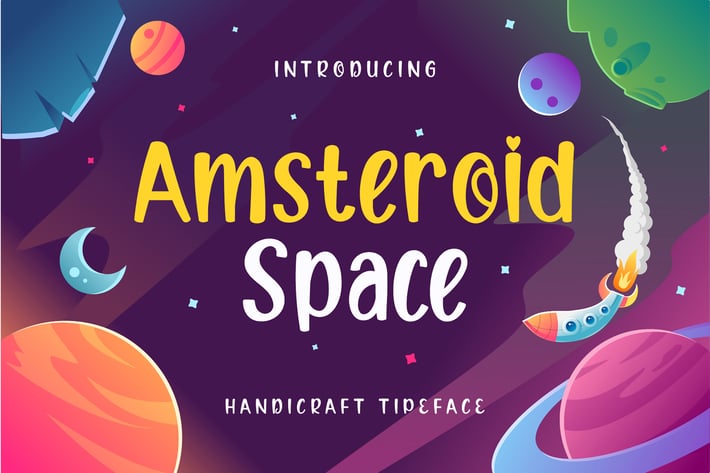
Amsteroid Space - Handcraft Display Font
Introducing Amsteroid Space, a playful and charming handcrafted display font that brings a warm, natural vibe to your creative projects. Its irregular yet tidy shapes give it a unique personality that feels both fun and approachable. This font is perfect for adding a handcrafted touch to your designs without sacrificing clarity.
Designed with care, Amsteroid Space works beautifully across a wide range of uses. Whether you are creating branding for children’s products, menus for food businesses, or eye-catching labels, this font fits seamlessly. Furthermore, it’s an excellent choice for holiday themes, school materials, advertising, logos, and much more.
What makes Amsteroid Space stand out is its blend of fun and professionalism. While the letters have a relaxed, handmade style, they remain neat and easy to read. As a result, you can rely on this font to attract attention while keeping your message clear.
Here’s a quick look at the benefits of choosing Amsteroid Space:
- Playful and natural handcrafted design
- Irregular but clean letterforms
- Perfect for branding, kids’ products, and food menus
- Great for labels, advertising, holidays, school, and logos
- Eye-catching, friendly, and legible style
Because of its versatile and inviting design, Amsteroid Space is ideal for designers, business owners, and creators who want to stand out. It adds a fresh, fun energy to any project while keeping a polished look.